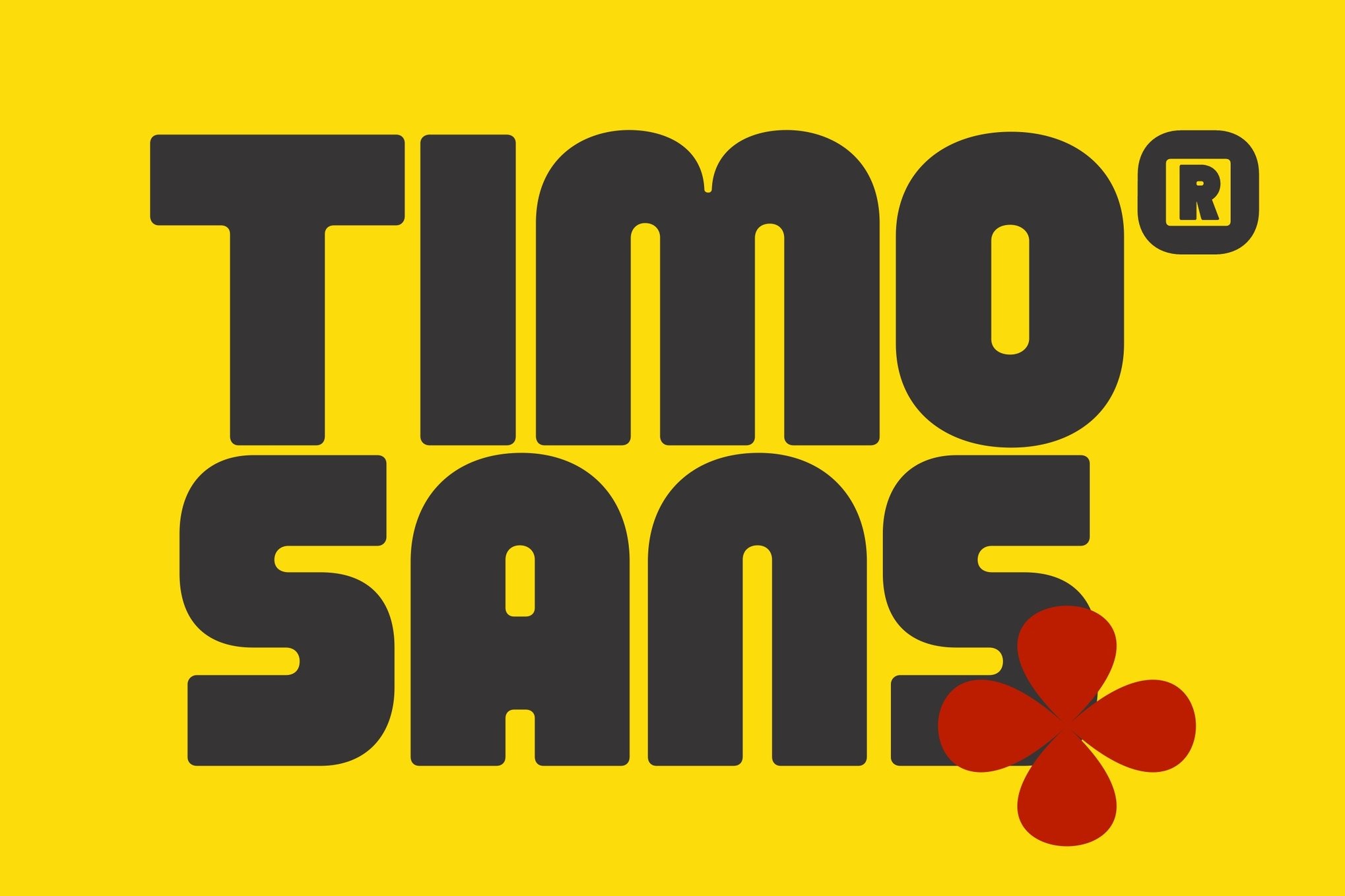
Timo Sans – Bold Font
Timo Sans – Bold Font is a versatile font designed to adapt beautifully across different design styles, offering dependable readability and balance. Timo Sans is a modern sans serif typeface designed with a clean, minimalist, and professional character. Featuring balanced proportions, smooth curves, and sharp geometric details, this font delivers excellent readability while maintaining a stylish contemporary look. Timo Sans is crafted to bring versatility and elegance into both digital and print design projects.
Perfect for branding, logos, editorial layouts, websites, social media graphics, packaging, posters, UI/UX design, and modern business presentations. Its timeless sans serif structure makes Timo Sans highly adaptable for luxury, corporate, creative, and lifestyle industries.
Whether used for bold headlines or clean body text, Timo Sans offers a sophisticated visual presence that feels modern, fresh, and highly functional.